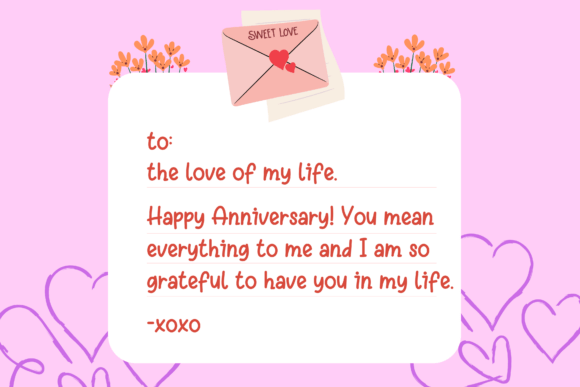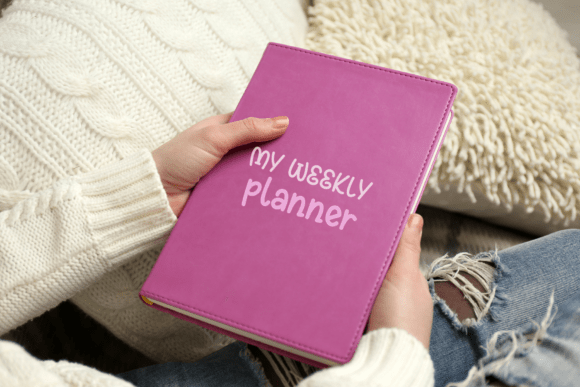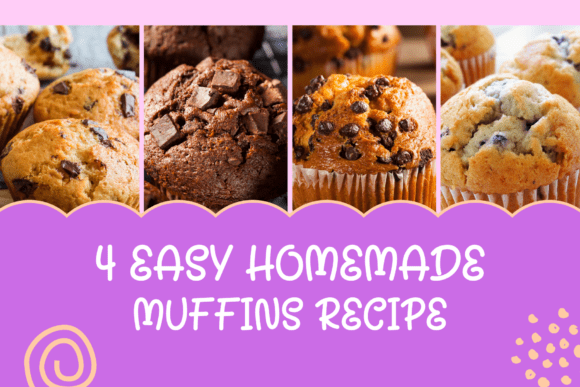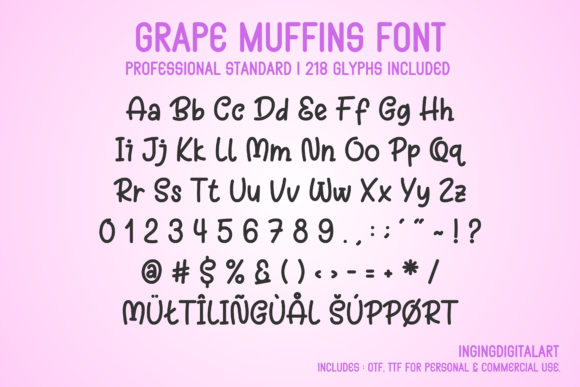
Introducing Grape Muffins Font: The Sweetest Addition to Your Design Toolbox
Are you tired of using the same old fonts in your designs? Look no further than Grape Muffins, a sweet and playful handwritten font that’s sure to bring a personal touch to any project. With its heartwarming vibe and charming aesthetic, Grape Muffins is the perfect choice for designers, crafters, and creatives looking to add a dash of personality to their work.
What Makes Grape Muffins Font So Special?
Grape Muffins is more than just a font – it’s a way to connect with your audience on a personal level. Its sweet and playful handwritten style evokes feelings of warmth and approachability, making it perfect for projects that require a touch of whimsy and charm. Whether you’re designing social media posts, digital planners, or branding materials, Grape Muffins is sure to make your work stand out from the crowd.
One of the best things about Grape Muffins is its versatility. This font is perfect for a wide range of projects, including:
- Social Media Posts: Add a touch of personality to your social media posts with Grape Muffins. Its playful style is sure to grab the attention of your followers and make your content more engaging.
- Goodnotes and Digital Planning: Take your digital planning to the next level with Grape Muffins. This font is perfect for creating custom layouts, headers, and titles that add a personal touch to your Goodnotes and digital planners.
- Branding: Establish your brand’s personality with Grape Muffins. This font is perfect for creating custom branding materials, such as logos, business cards, and letterheads.
- Invitations: Make your invitations extra special with Grape Muffins. This font is perfect for creating custom invitations for parties, weddings, and other special events.
- Decorative Crafts: Add a touch of charm to your decorative crafts with Grape Muffins. This font is perfect for creating custom titles, headings, and quotes for your craft projects.
What You Get with Grape Muffins Font
When you download Grape Muffins, you’ll get access to a comprehensive set of characters, including:
- Uppercase and lowercase letters
- Numbers
- Basic punctuation
- International characters
This means you can use Grape Muffins to create a wide range of designs, from simple and elegant to complex and creative.
Why Choose Grape Muffins Font?
There are many fonts to choose from, but Grape Muffins stands out from the rest. Here are just a few reasons why:
- Unique and Playful Style: Grape Muffins has a one-of-a-kind style that’s sure to make your designs stand out.
- Easy to Read: Despite its playful style, Grape Muffins is easy to read, making it perfect for body text and other applications where legibility is important.
- Versatile: Grape Muffins can be used for a wide range of projects, from casual social media posts to more formal branding materials.
- Supports International Characters: Grape Muffins supports international characters, making it a great choice for designers and crafters who work with clients or audiences from around the world.